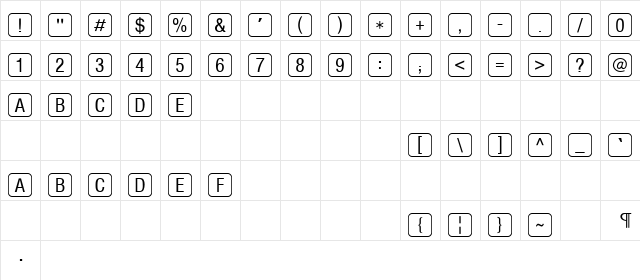
RRKeyLetters Normal
Design Context for RRKeyLetters Typeface
RRKeyLetters is a composed and adaptable typeface that performs quietly and consistently across a wide range of design contexts.